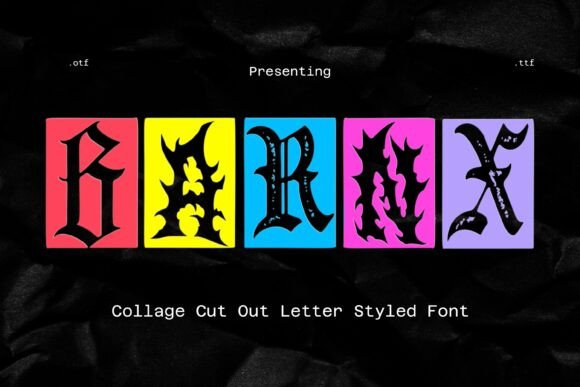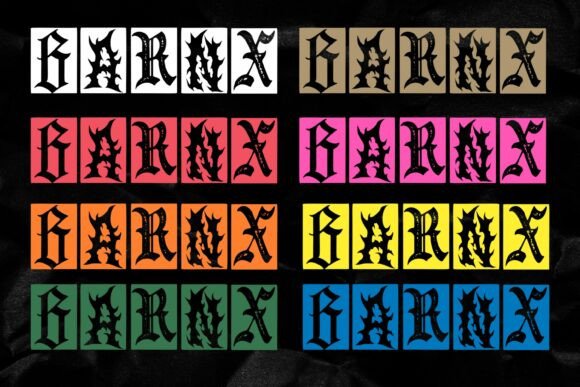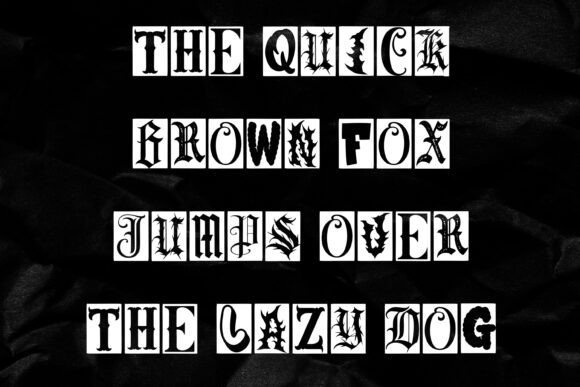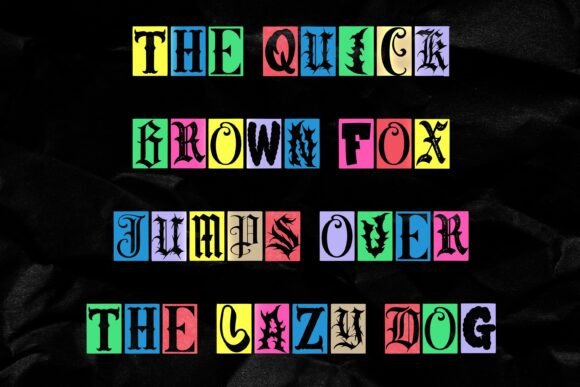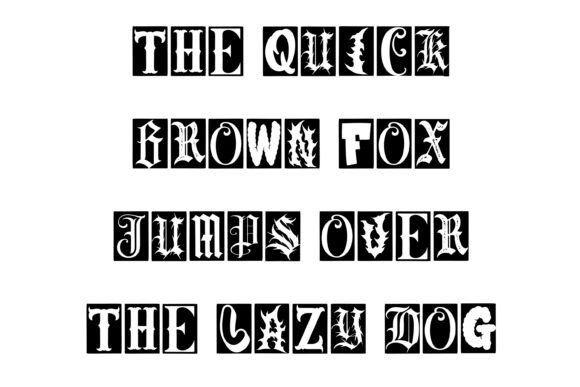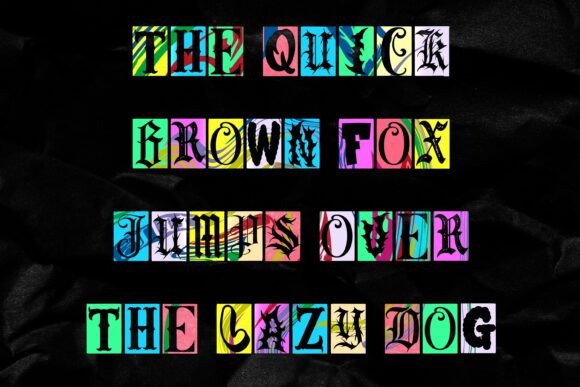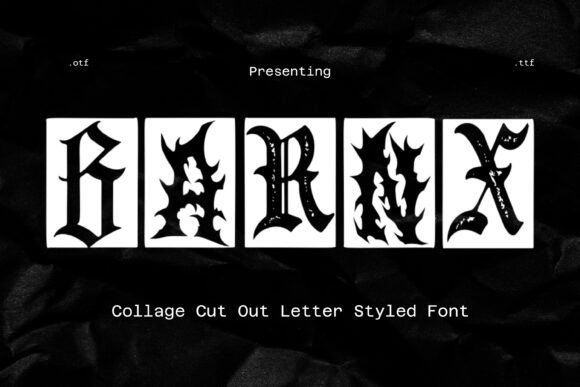
Barnx Font: Unleash Your Creativity with this Bold and Eclectic Typeface
In the world of typography, fonts are more than just a means to convey words – they’re a way to express emotions, convey personalities, and add depth to designs. If you’re a designer or crafter looking for a font that embodies a bold, rebellious spirit with a distinctly eclectic edge, look no further than Barnx Font. This unique typeface is a masterful blend of gothic, vintage serif, ornamental, and grunge aesthetics, making it perfect for those who dare to be different.
A Font like No Other
What sets Barnx Font apart from other typefaces is its uniquely styled letters. Each character is carefully crafted to pull inspiration from various sources, resulting in a mix-and-match look that’s reminiscent of a “cut-out collage” or ransom-note feel. No two characters are the same, making Barnx Font highly expressive and eye-catching. This font is perfect for designers who want to add a touch of personality to their work and break free from traditional typography rules.
A Blend of Styles
Barnx Font seamlessly blends sharp blackletter forms with decorative flourishes, dramatic curves, and textured details. This combination creates a sense of controlled chaos, giving the font an artistic, unconventional vibe. The contrast between structured serif elements and more playful, exaggerated shapes adds to its eclectic charm. Whether you’re designing bold headlines, album-style graphics, or streetwear branding, Barnx Font is sure to make a statement.
Perfect for Bold Designs
Barnx Font works especially well for designs that aim to stand out from the crowd. Its bold, attention-grabbing personality makes it perfect for:
- Bold Headlines: Add a touch of drama to your headlines with Barnx Font’s sharp, blackletter forms and decorative flourishes.
- Album-Style Graphics: Give your music-inspired designs a rebellious edge with Barnx Font’s eclectic, grunge-inspired aesthetic.
- Streetwear Branding: Make a statement with Barnx Font’s bold, playful personality – perfect for streetwear brands that want to stand out.
- Editorial Layouts: Add a touch of artistic flair to your editorial designs with Barnx Font’s unique, unconventional vibe.
Tips for Using Barnx Font
To get the most out of Barnx Font, here are a few tips to keep in mind:
- Experiment with Pairings: Barnx Font works well with a variety of other typefaces. Experiment with different pairings to find the perfect match for your design.
- Play with Size and Color: Barnx Font is perfect for bold, eye-catching designs. Play with size and color to make your text stand out.
- Don’t be Afraid to Get Creative: Barnx Font is all about creative expression. Don’t be afraid to experiment and try new things – it’s all part of the fun!
Barnx Font is a game-changer for designers and crafters who want to add a bold, rebellious touch to their work. With its uniquely styled letters, eclectic blend of styles, and artistic vibe, this font is perfect for those who dare to be different. Whether you’re designing bold headlines, album-style graphics, or streetwear branding, Barnx Font is sure to make a statement. So why settle for ordinary typography when you can unleash your creativity with Barnx Font?